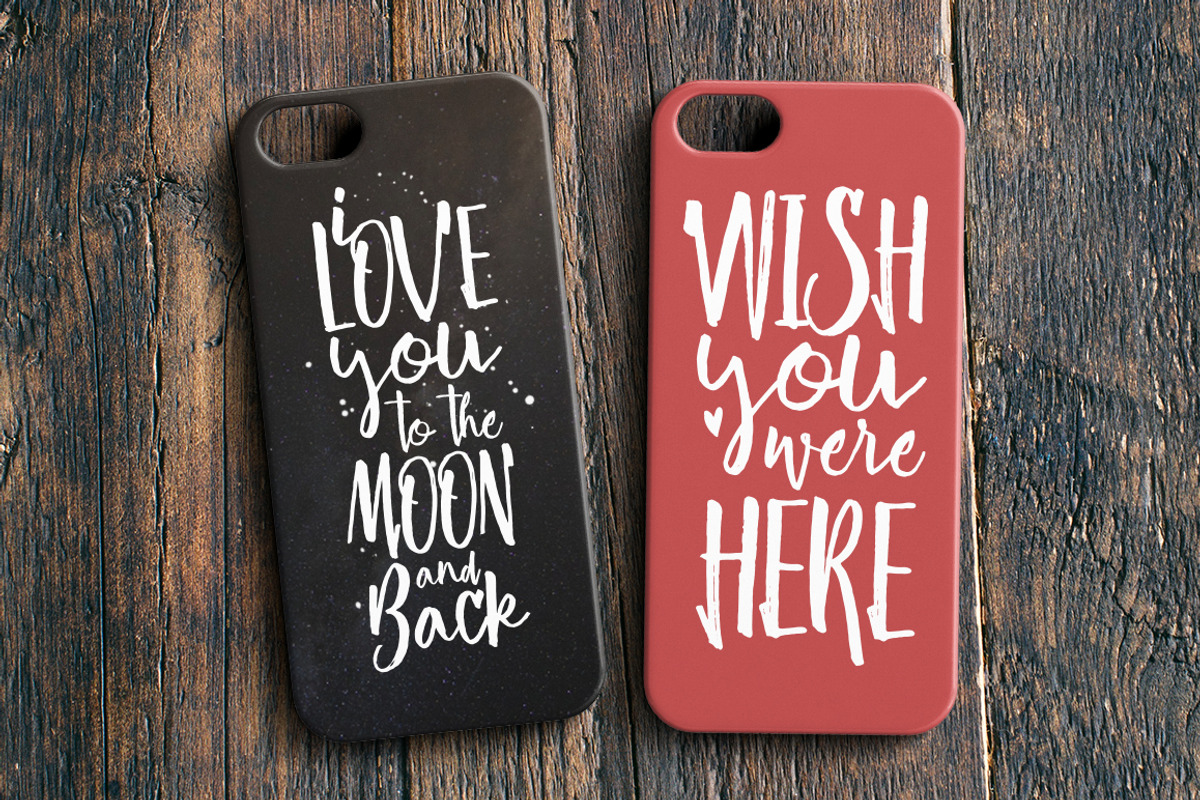
Risoless Script
Introducing The Risoless Script, Based on a kids script handwriting flow and we translated it into a typeface with keeping the honesty and cuteness on every stroke of a kids on it.
Comes with Uppercase, Lowercase, Numbers and Punctuations, Support English standard keyboard language.